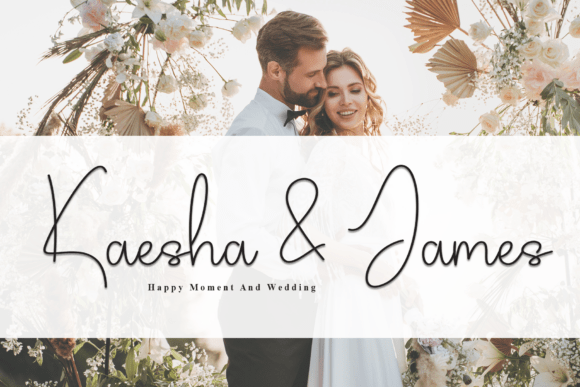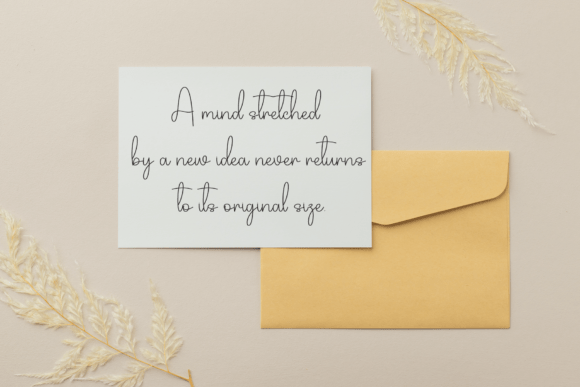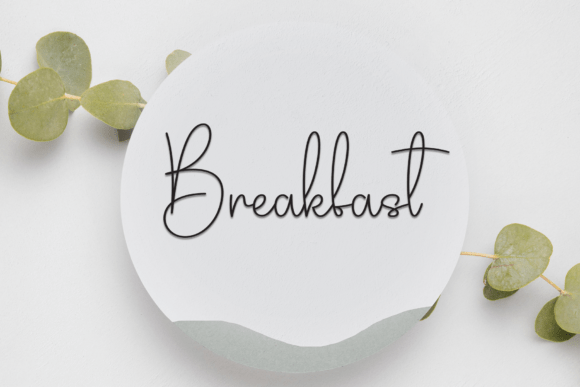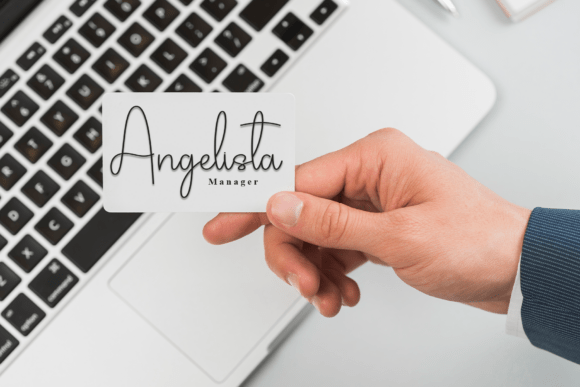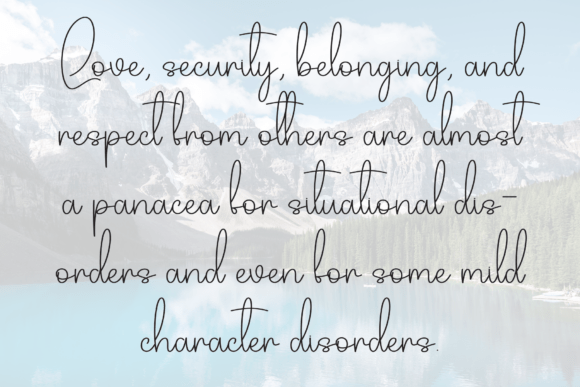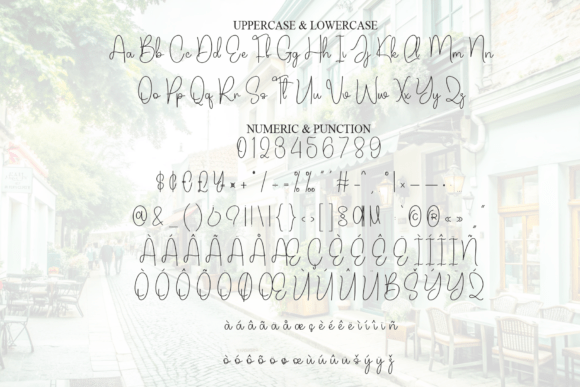
Introduction to Quiteplace Font
As designers, we’ve all had those moments where we’re searching for the perfect font to elevate our creative project. Maybe it’s a logo for a new business, or a social media graphic that needs a touch of personality. Whatever the project, the right font can make all the difference. And that’s exactly why we’re excited to introduce you to Quiteplace Font – a stylish script font that exudes elegance and modern charm.
With its fluid strokes, graceful curves, and carefully balanced letterforms, Quiteplace Font captures the beauty of hand-drawn calligraphy with a contemporary edge. Whether you’re looking for a high-quality design resource or a free download for your next project, this font is sure to impress. Its versatility makes it ideal for a wide range of applications, from packaging and invitations to social media graphics and more.
Key Features of Quiteplace Font
- High-quality design for various creative projects, including digital art and print materials.
- Includes a transparent background, allowing for seamless integration into any design.
- Features a large character set, including uppercase and lowercase letters, numbers, and special characters.
- Supports various font sizes and resolutions, making it suitable for use in a range of creative projects.
- Designed with a unique aesthetic, Quiteplace Font offers a distinctive look that can add visual interest to any design.
Honest Review: Quiteplace Font
As a designer, I’m always on the lookout for high-quality design resources to elevate my creative projects. I recently stumbled upon the Quiteplace Font, a free download that has both impressed and frustrated me in equal measure.
- ✨ The Quiteplace Font has a clean and modern aesthetic, making it perfect for a wide range of creative projects.
- ✨ The font is incredibly versatile, with a transparent background that makes it easy to use in both dark and light backgrounds.
However, I’ve also encountered a few limitations:
- ⚠️ The font is only available in a limited number of weights, which can make it less versatile for certain design projects.
- ⚠️ The font’s readability can be affected by the size and resolution of the design, so it’s essential to test it thoroughly before using it in a live project.
Overall, the Quiteplace Font is a solid design resource that can add a touch of sophistication to your creative projects. While it may not be perfect, its unique aesthetic and transparent background make it a great choice for designers looking for a high-quality, free download.
Tips for Getting the Most Out of Quiteplace Font
For optimal results, use the Quiteplace Font in conjunction with other high quality design resources. Experiment with different font sizes, colors, and styles to find the perfect combination for your design.
The Quiteplace Font is ideal for various creative projects, including:
- Logo creation
Yes, Quiteplace Font supports transparent backgrounds, making it ideal for projects that require a subtle or layered design. The font’s transparent background allows you to easily combine it with other design elements or images, giving you more creative freedom.